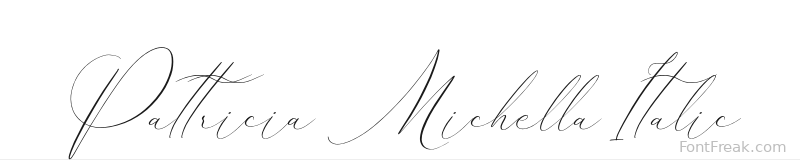
Pattricia Michella Italic
About Pattricia Michella Italic
Pattricia Michella Italic is a beautifully crafted script font from Perspectype Studio, released in 2021 as freeware. This elegant typeface embodies a refined, flowing style that is perfect for a variety of design applications. Its graceful strokes and delicate curves create a visual harmony that captures the essence of sophistication while remaining approachable. The font features a moderate stroke weight with subtle contrasts, enhancing its readability without compromising its artistic flair. The generous spacing between letters adds to its airy feel, making it suitable for both large and small text.
Ideal for a wide range of use cases, Pattricia Michella Italic shines in wedding invitations, where its romantic aesthetic can elevate the overall design. It is equally effective for greeting cards, adding a touch of personal warmth to messages. Additionally, this font can enhance restaurant menus, infusing them with a sense of charm that appeals to diners. Content creators and graphic designers will find it a perfect choice for social media graphics, as its unique style can help create eye-catching posts that stand out in crowded feeds.
The target audience for Pattricia Michella Italic includes graphic designers, small business owners, and content creators seeking to express creativity in their projects. This font allows them to convey elegance and style, making it an essential addition to any designer's toolkit.
What sets Pattricia Michella Italic apart is its blend of sophistication and versatility. Whether used in formal invitations or casual branding projects, this font adds a distinct touch that enhances the overall aesthetic. For those looking to elevate their designs, the Pattricia Michella Italic font free download is an opportunity to incorporate a unique typeface that speaks to both elegance and creativity.